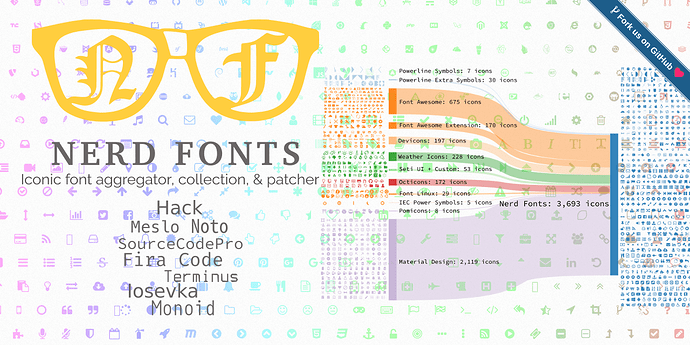
Just a suggestion, FiraMono Nerd Font looks better than the default Noto Mono Font (to me, at least
) in the default zsh theme in Konsole/Yakuake.
Noto Mono -
FiraMono -
FiraMono could be considered to be included as default terminal font, if others agree and there are no license issues.